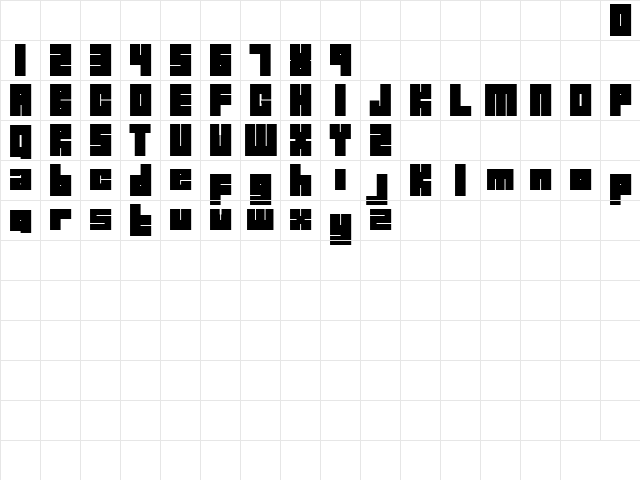
Baung Asam Pedas DEMO Regular
Design Context for Baung Asam Pedas DEMO Typeface
Baung Asam Pedas DEMO is a composed and adaptable typeface that performs quietly and consistently across a wide range of design contexts.